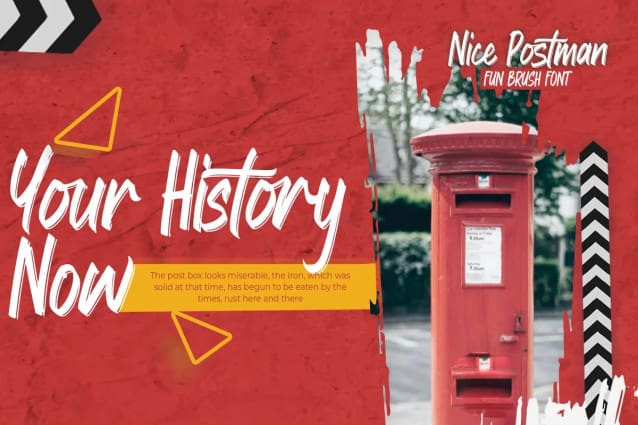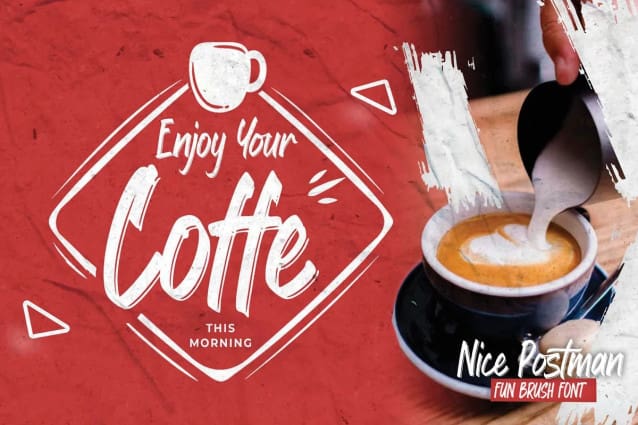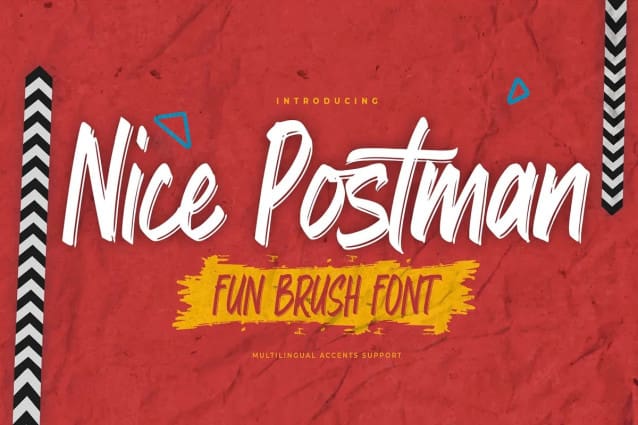
Nice Postman Font
Nice Postman Font, this is a Textured Natural Style and classy style with a clear style and dramatic movement. This font Nice Postman is great for your next creative project such as logos, printed quotes, invitations, cards, product packaging, headers, Logotype, Letterhead, Poster, Design this font is great for your creative projects such as watermark on photography, and perfect for logos & branding, invitation,advertisements,product designs, stationery, wedding designs,label ,product packaging, special events or anything that need handwritting taste. That is has charming, authentic and relaxed characteristic more natural look to your text. You can activate 19 Ligatures glyphs and Alternates glyphs OpenType panel.